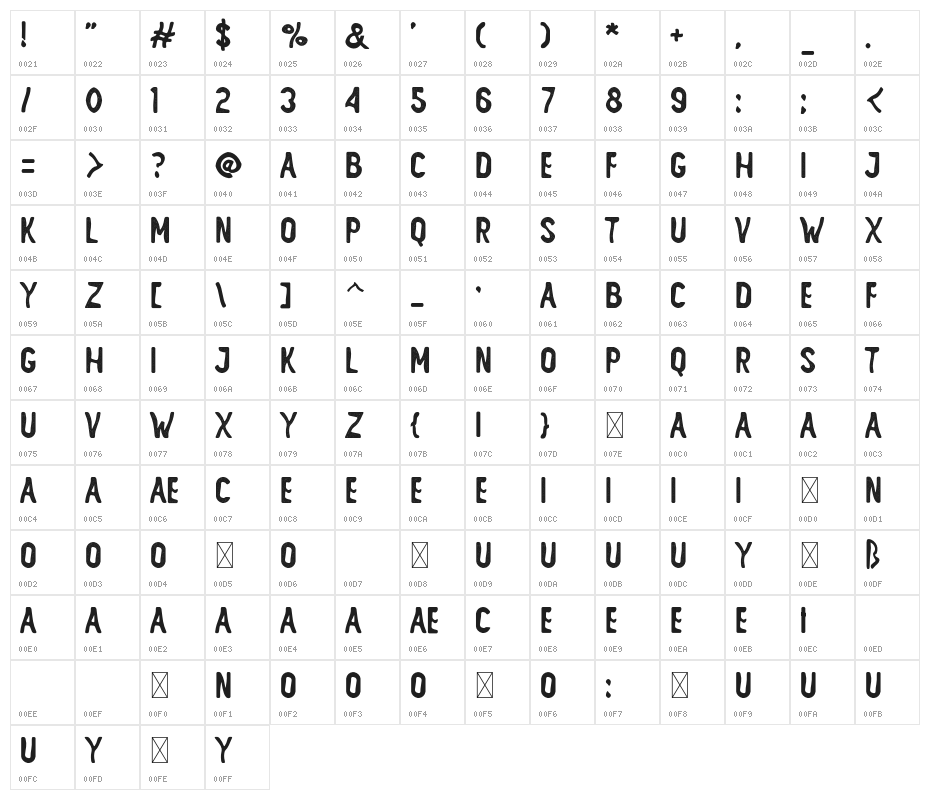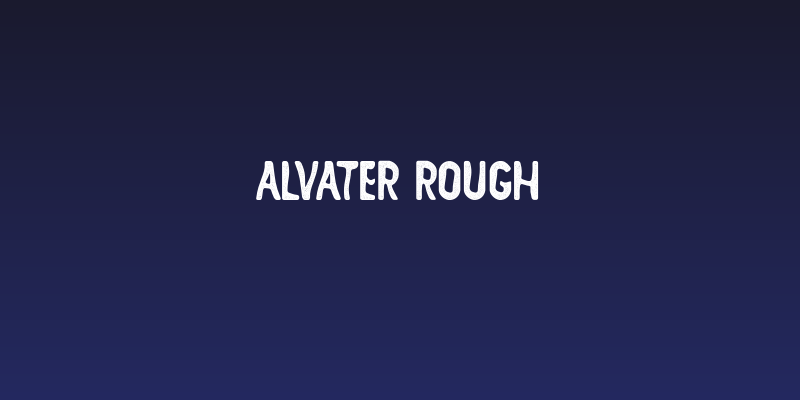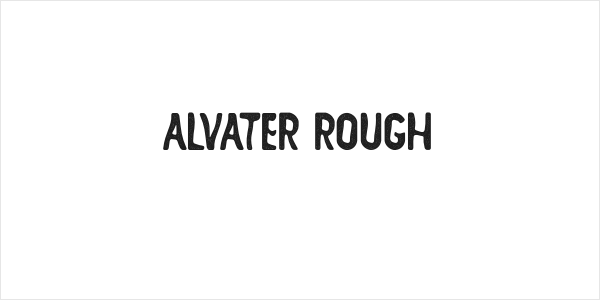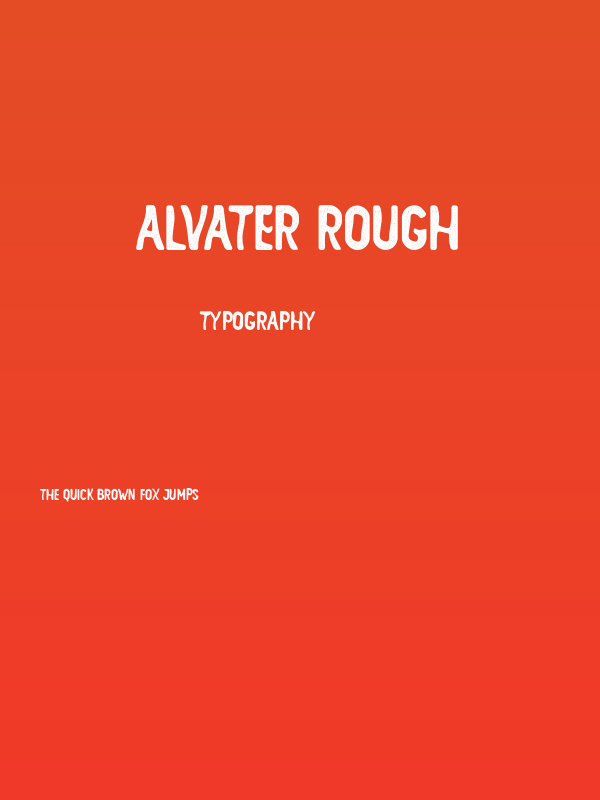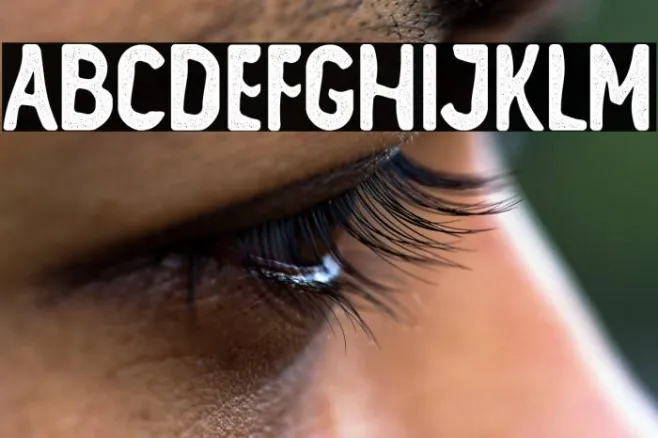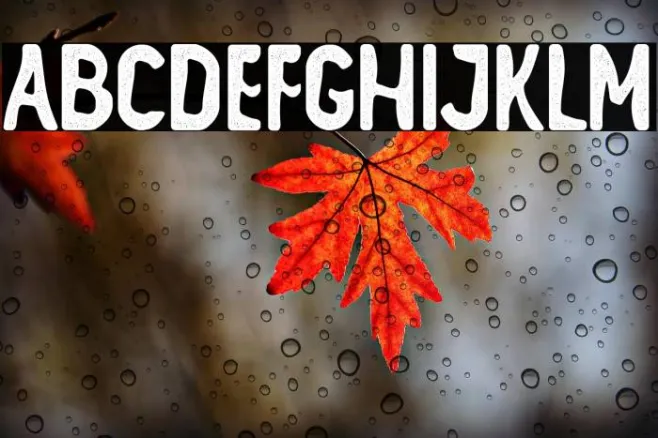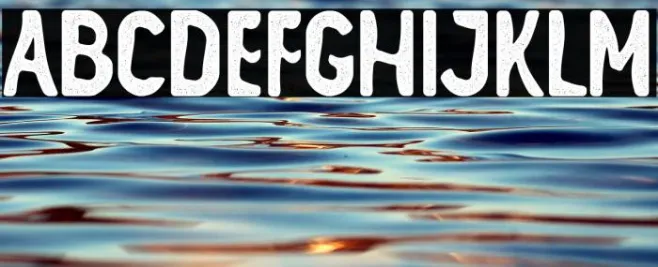
ALVATER Rough Font
ALVATER Rough Description
This font features a bold, rough texture that gives it a handcrafted, vintage feel. The letters are slightly irregular, adding to its rustic charm. Each character is distinct, with a playful yet sturdy appearance. The uppercase and lowercase letters maintain a consistent style, while the numerals and special characters complement the overall aesthetic. The texture within the letters suggests a worn, distressed look, making it ideal for projects that require a touch of authenticity and character.
| Proposed Projects | Ideal for branding, packaging, posters, and any design that requires a rustic or vintage touch. |